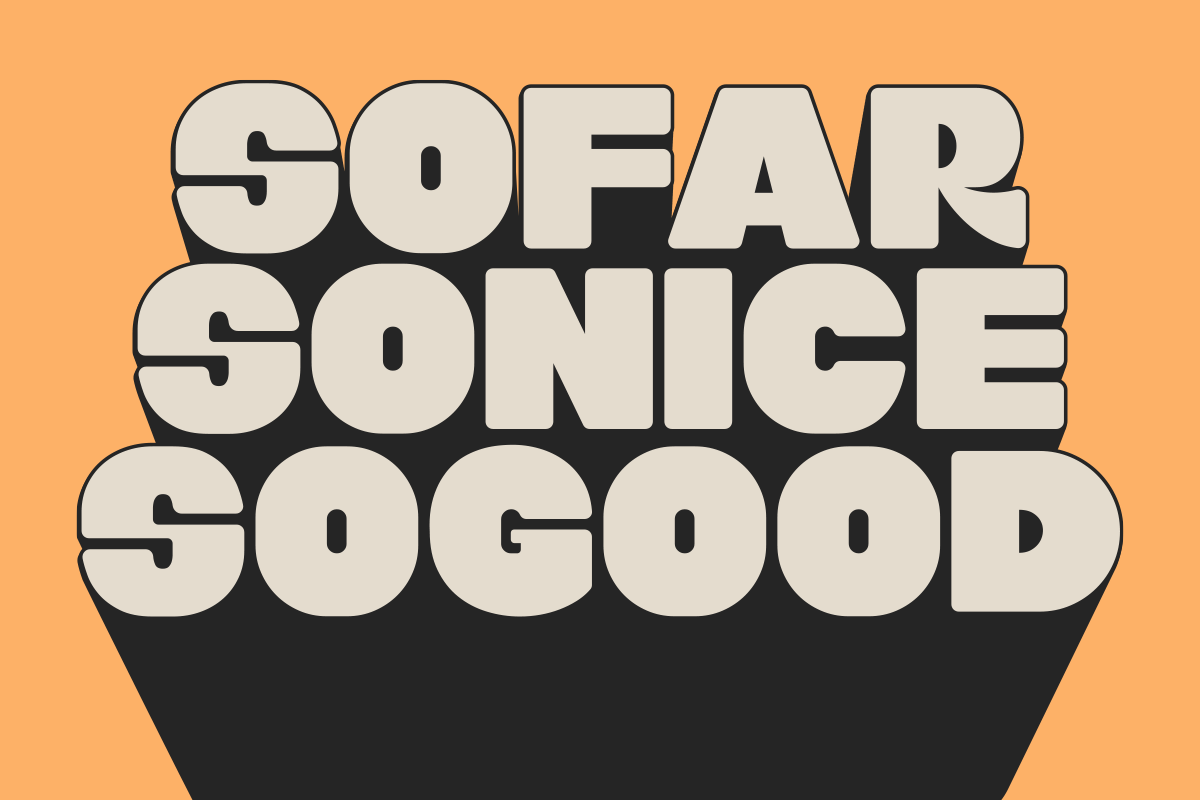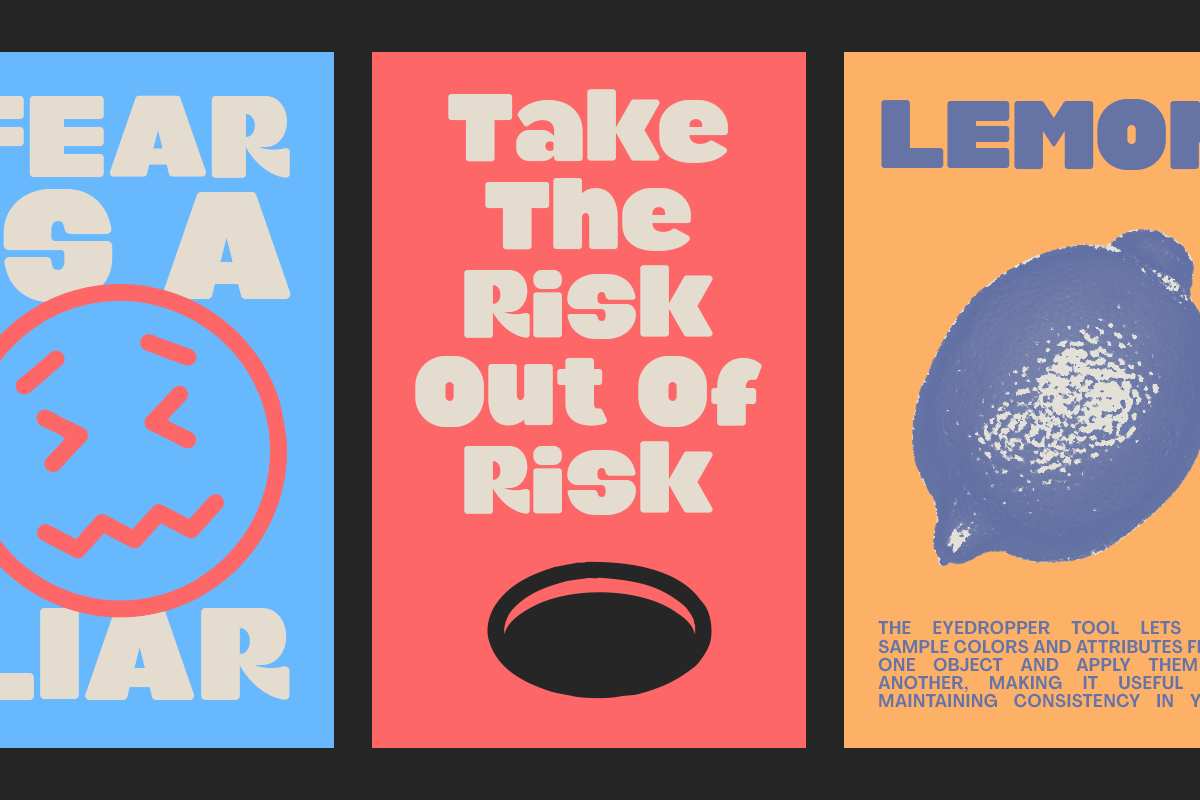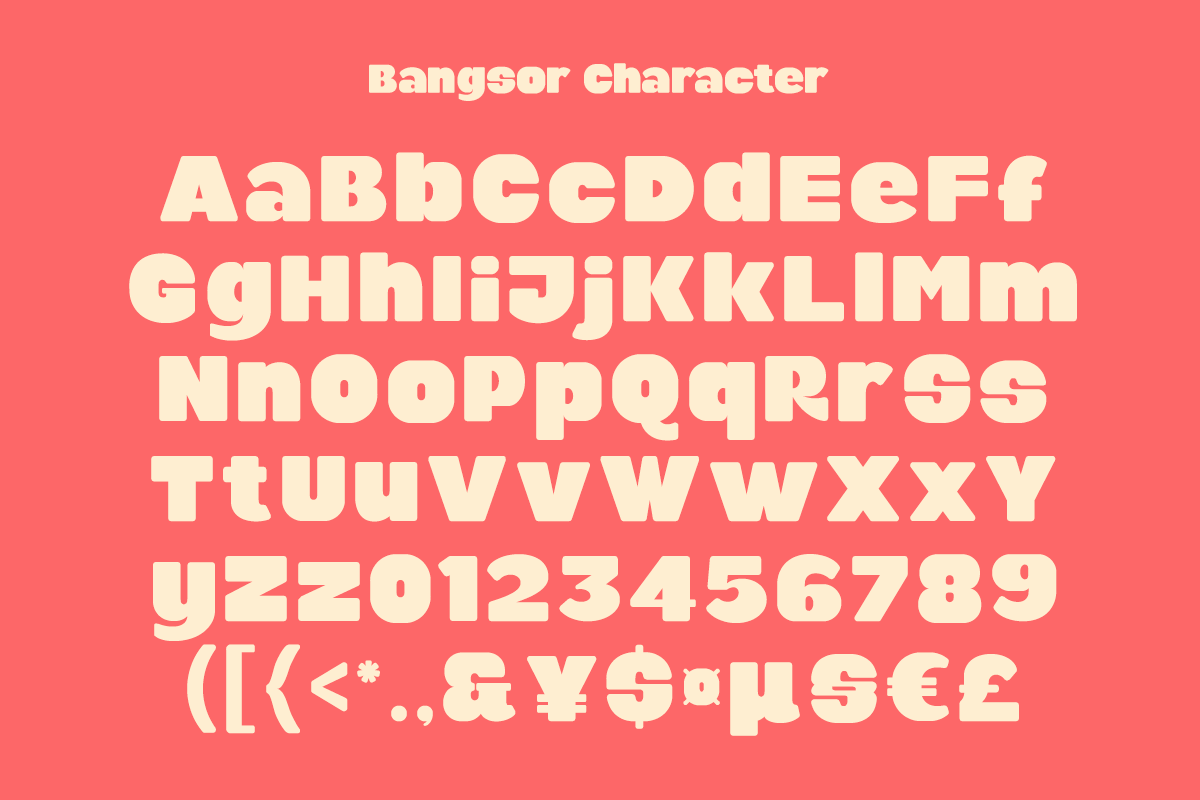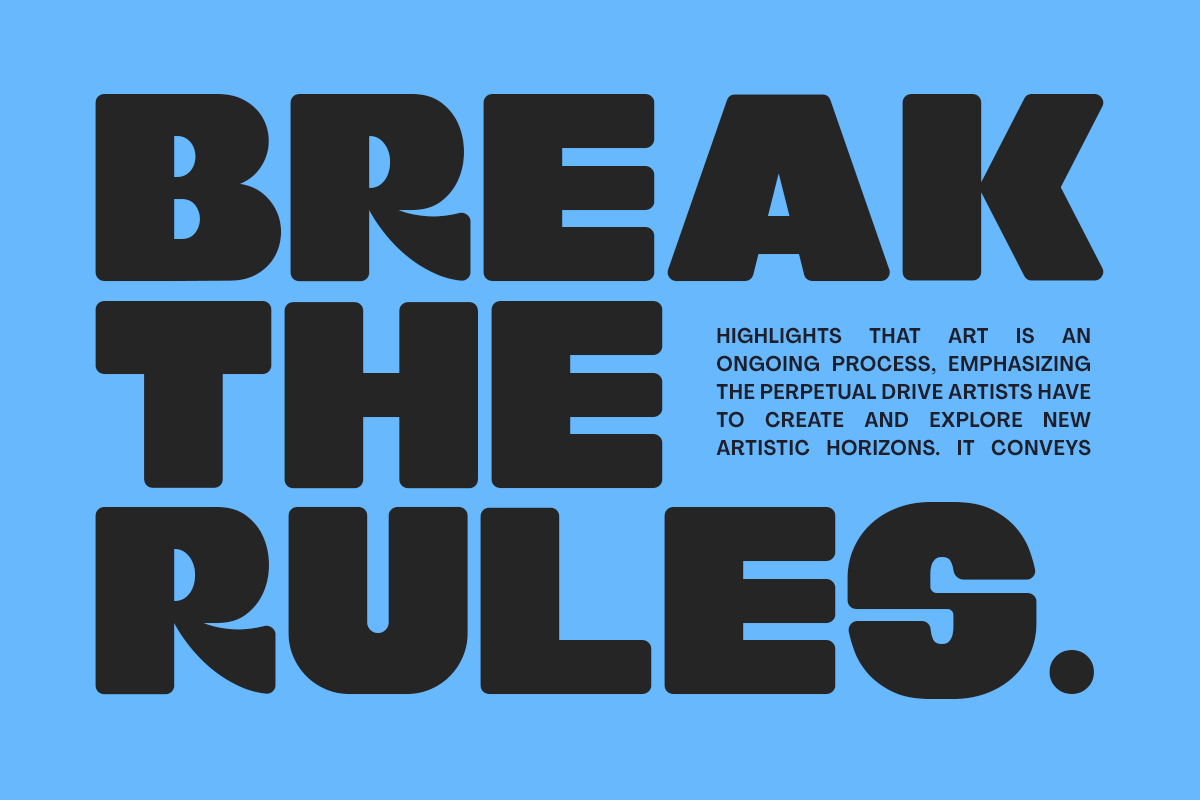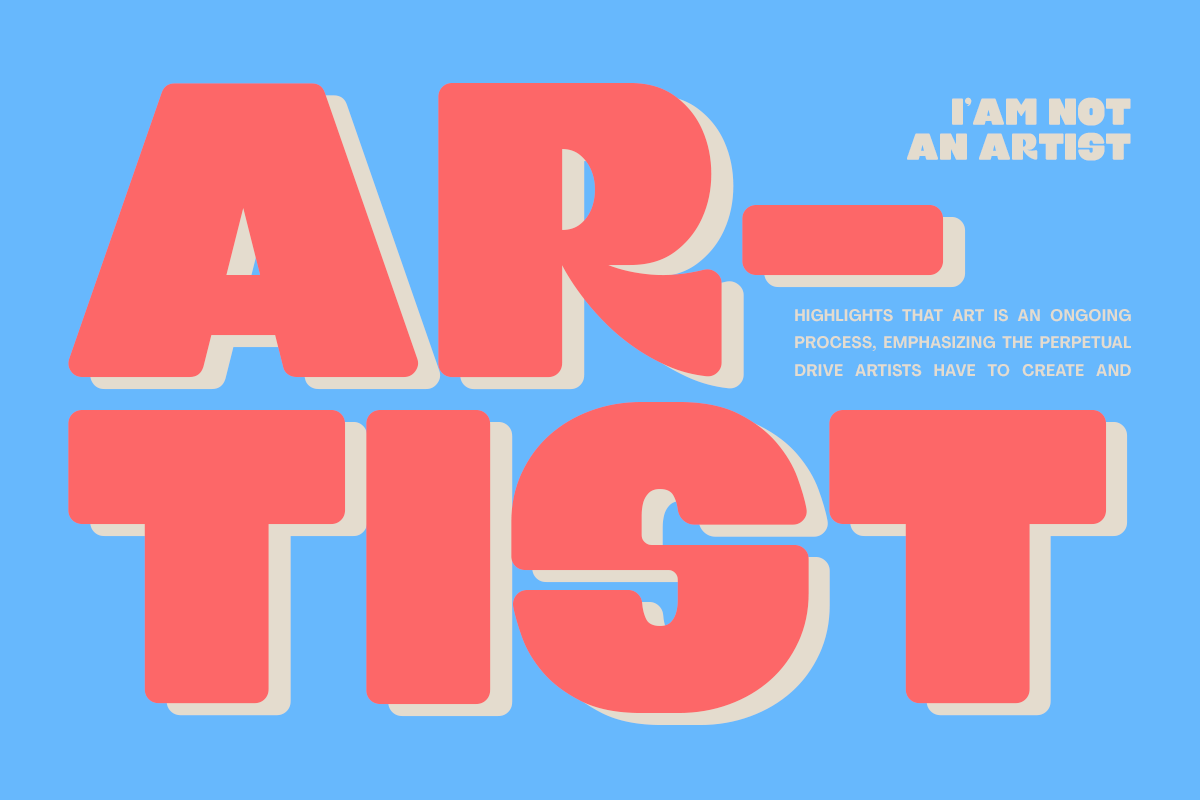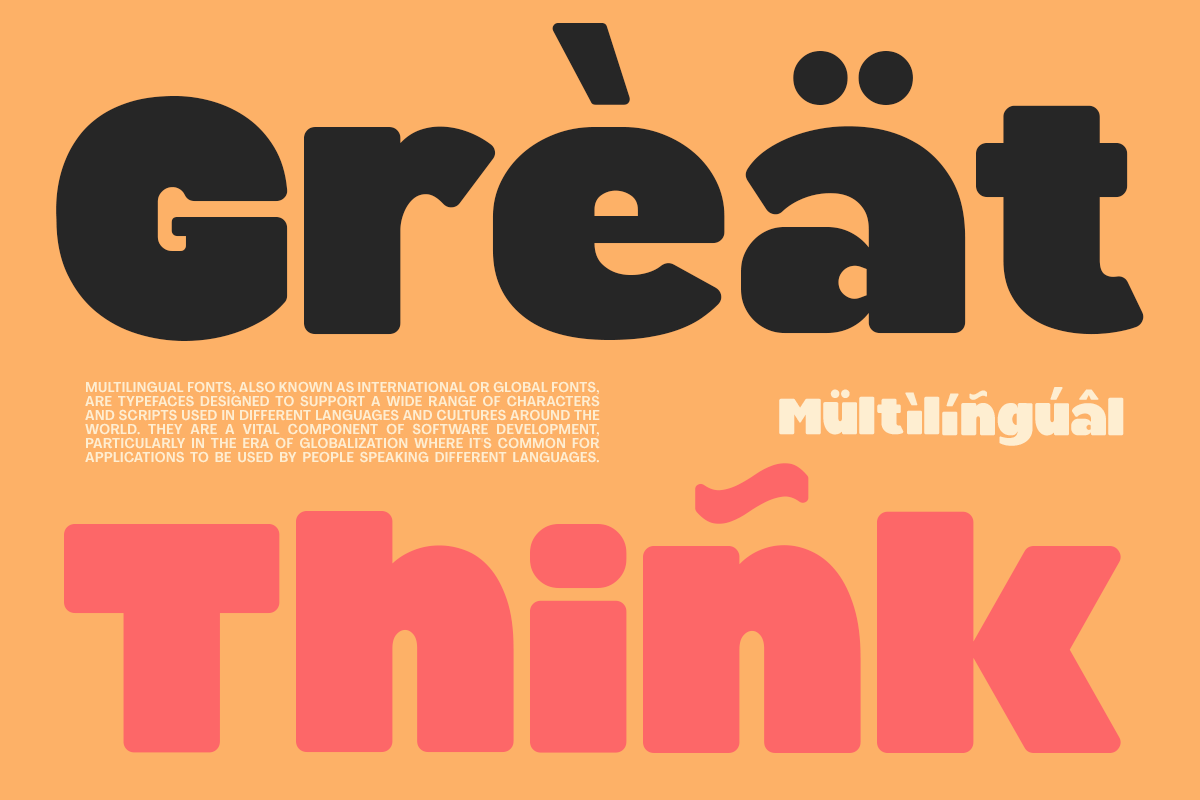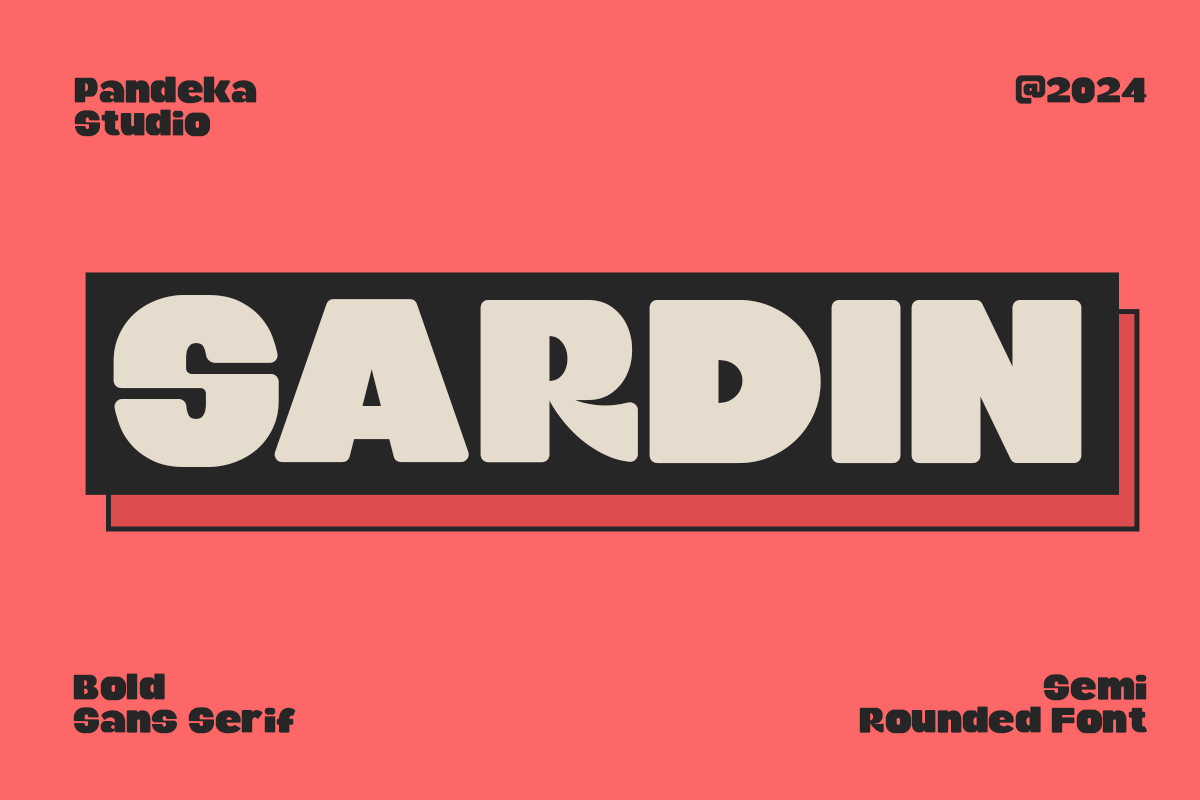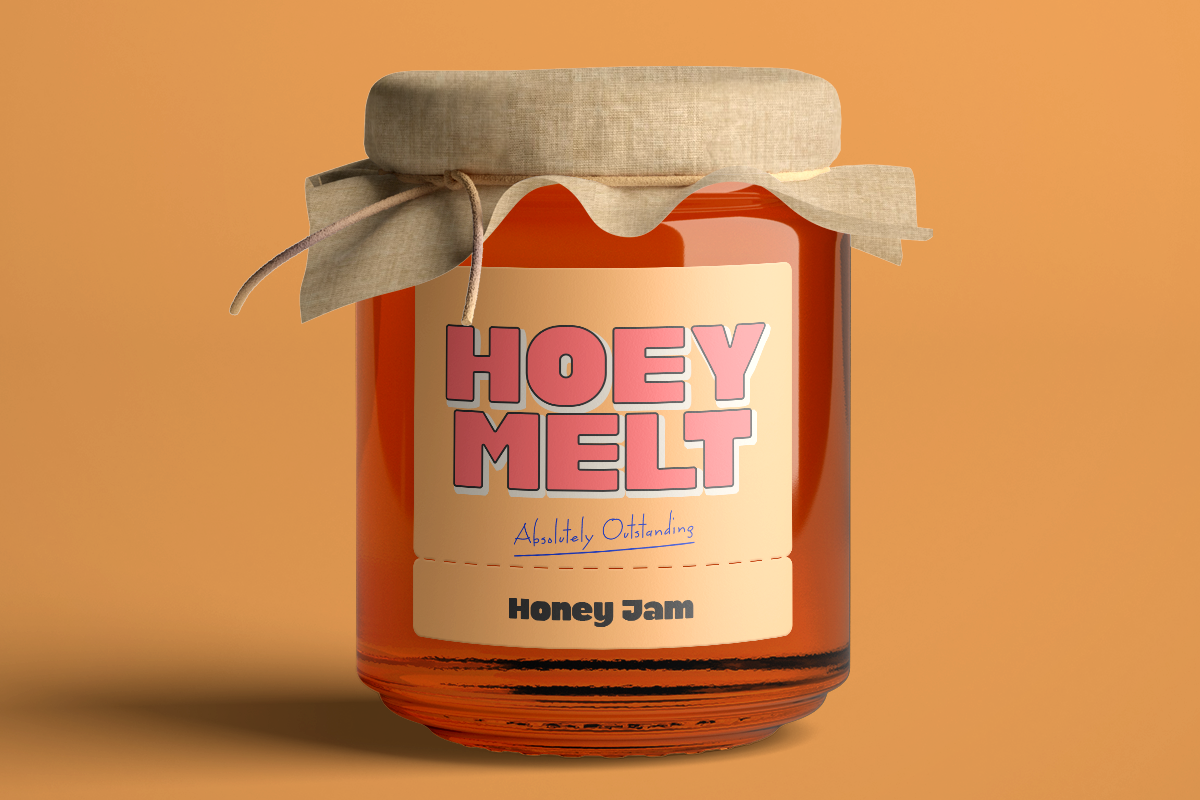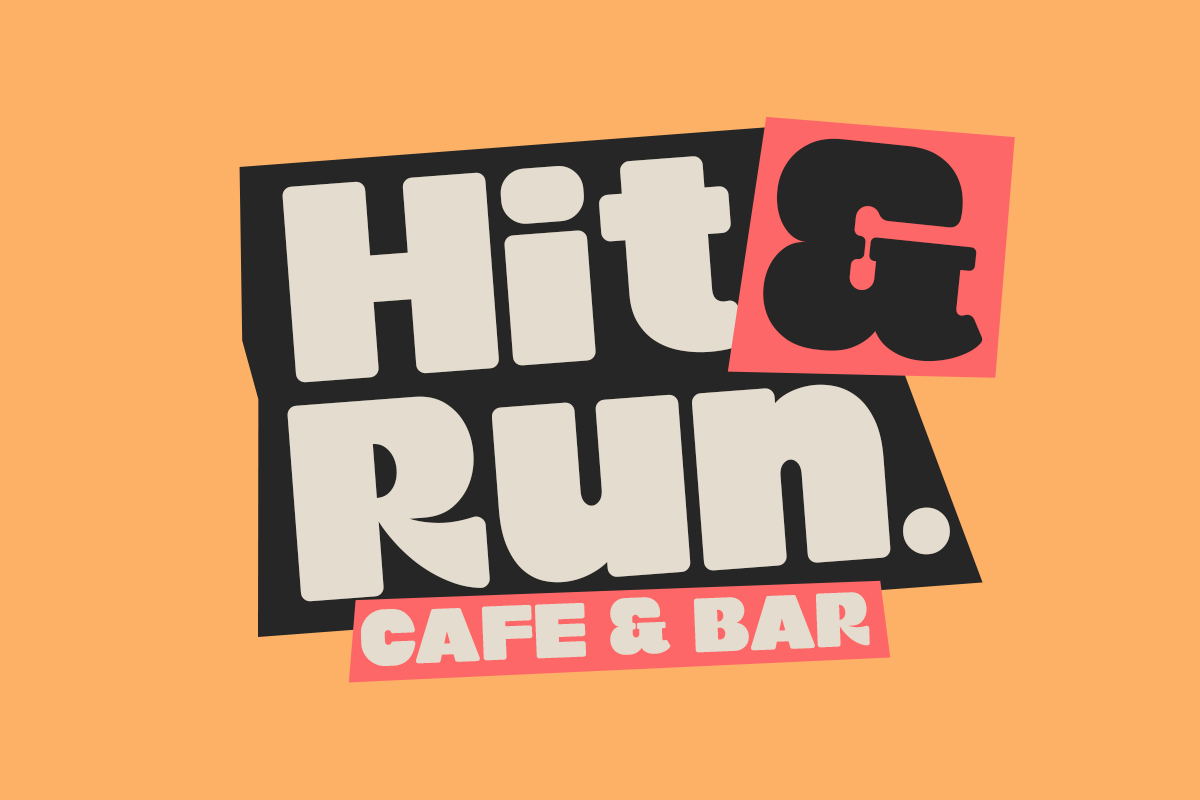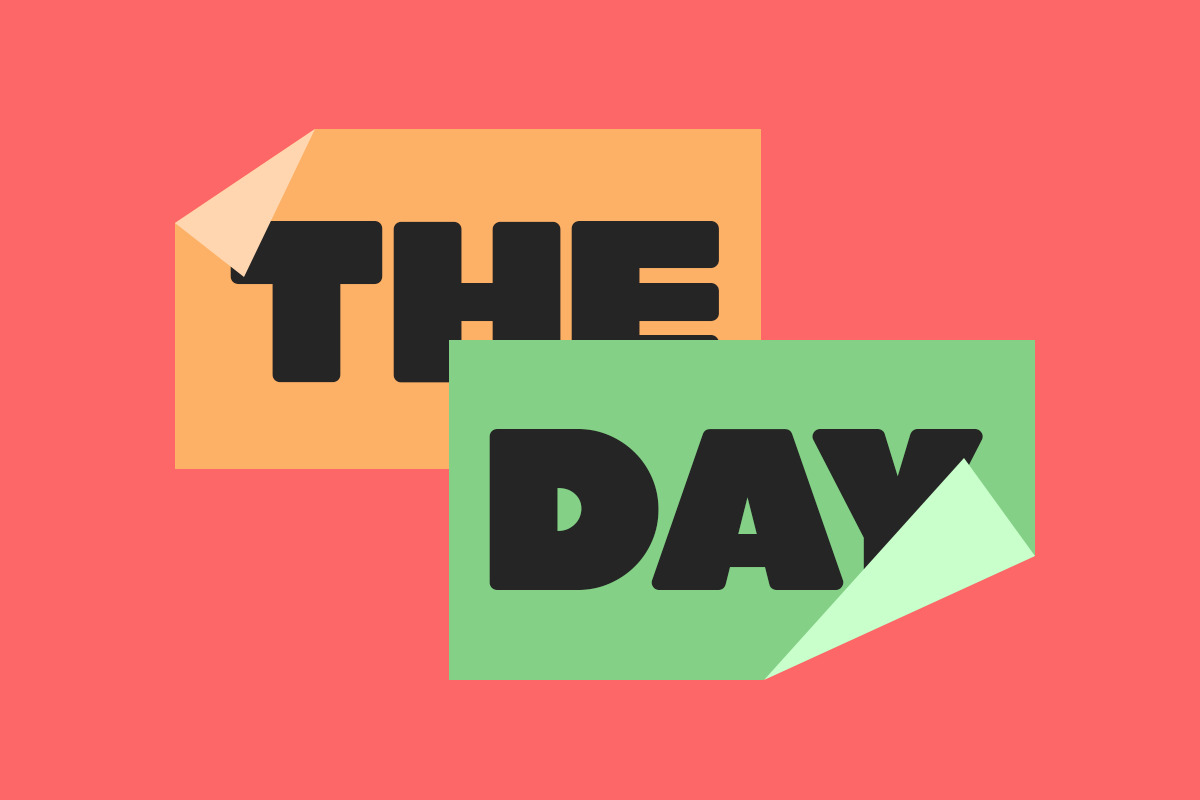
Sardin - Rounded Bold Font
Sardin - was designed in late 2023 and published on May 2024. The Typeface was inspired by the 90’s playful cartoons and comic books.
Sardin - contains everything you need to create stunning typography – from headline fonts to body text fonts all in one place.
Whether you're starting out or you've been designing for years, Sardin has everything you need. Can be used for modern and vintage designs, and also can be easily paired with some graphic elements (illustration, photography) this font is perfect for, logotype, branding, title, and packaging.